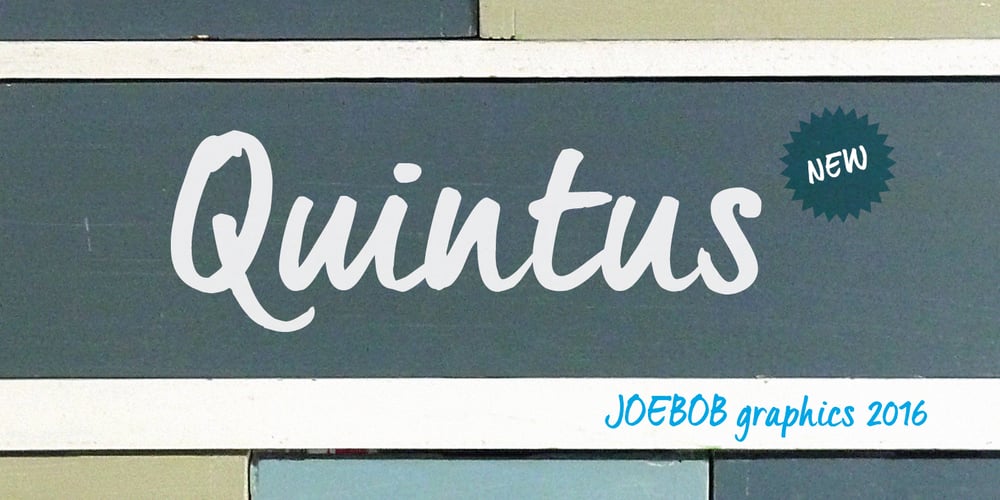
Quintus
Quintus font
Quintus Font Family was designed by Geert Dijkers and published by JOEBOB graphics. Quintus contains 2 styles and family package options. This font is an adaptation of the typeface I designed for TJX Europe, which was used in their branding campaigns for the TK MAXX stores all over Europe. Most characters were given a major facelift and also a few extra ligatures were added in the process. Quintus comes with a regular and a bold version so it offers more variety in use. It also works well in all caps.